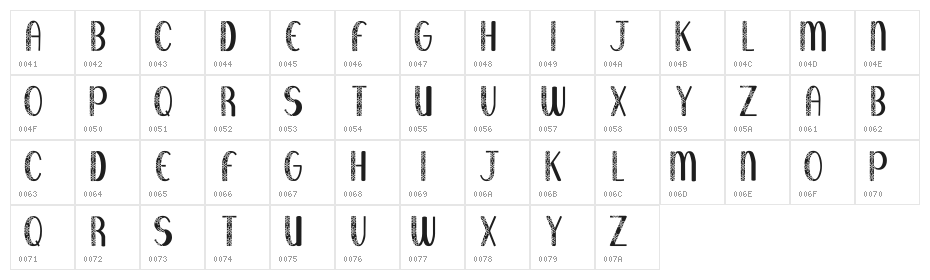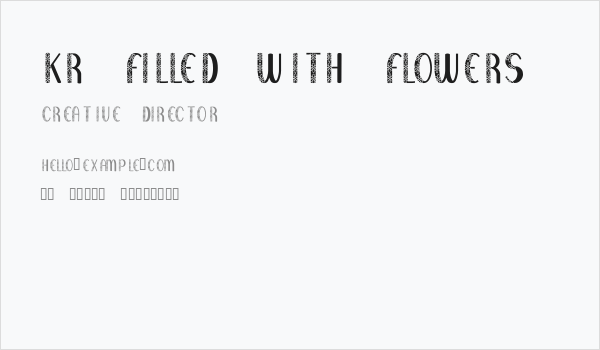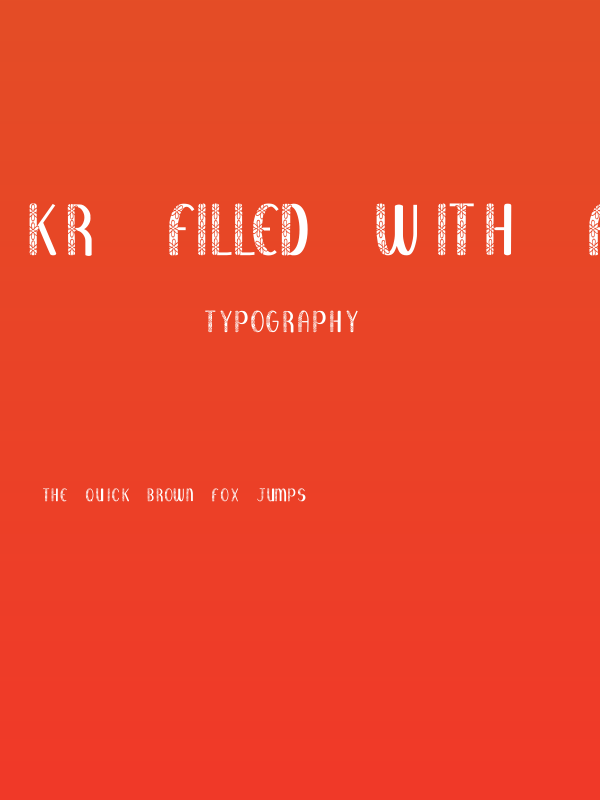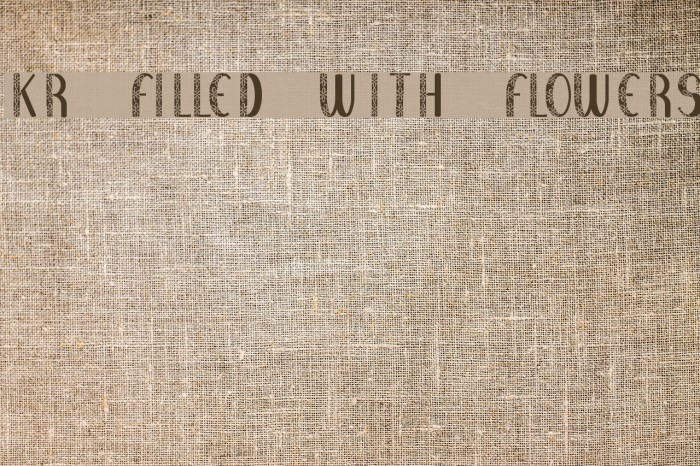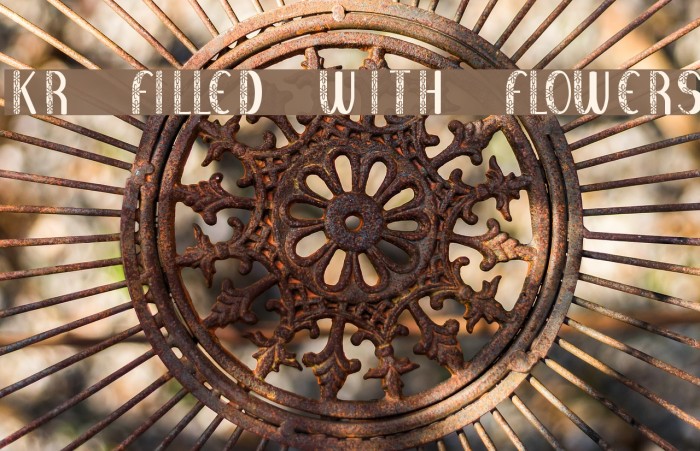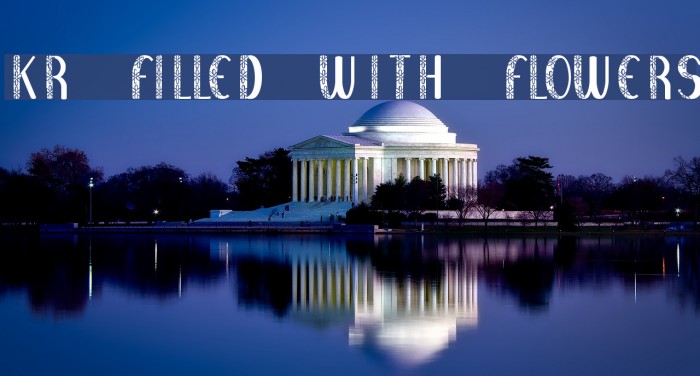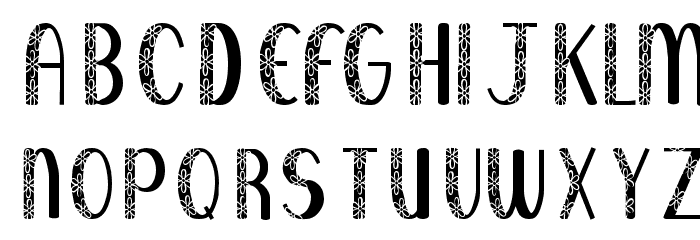
KR Filled With Flowers Font
KR Filled With Flowers Description
This decorative typeface features uppercase letters adorned with intricate floral patterns. Each character is filled with detailed floral motifs, creating a unique and artistic appearance. The font combines elegance with a playful touch, making it ideal for creative projects. The floral elements are seamlessly integrated into the letterforms, providing a harmonious blend of nature-inspired design and typography. This font lacks lowercase letters and numbers, focusing solely on uppercase characters. The absence of traditional characters like numbers and special symbols suggests its use is more suited for decorative purposes rather than functional text. The overall design is bold and eye-catching, perfect for making a statement in any design project.
| Proposed Projects | Ideal for wedding invitations, greeting cards, posters, and decorative branding projects. |